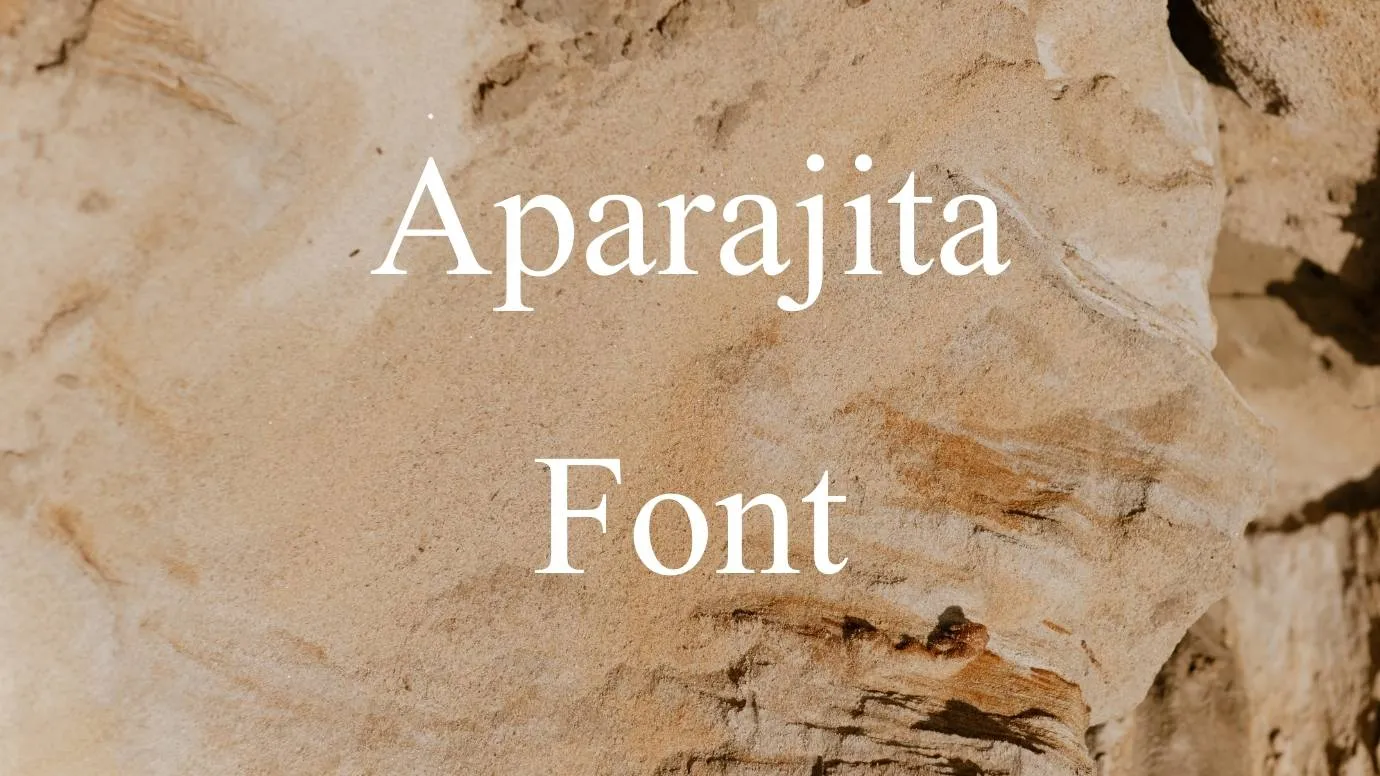
Aparajita is a serif font that is part of the Hindi typeface family named Aparajita Font. This particular serif font was created by the talented Dutch type designer, Gerrit Noordzij. It is designed around the characters of the Hindi language.
This beautiful typeface has been adopted by many international organizations. It is also popular for copy and paste systems. The advanced features of this typeface are useful for creating the latest designs. It has bold and unique glyphs and symbols.
| Name | Aparajita Font |
| Type | Serif |
| Designer | Gerrit Noordzij |